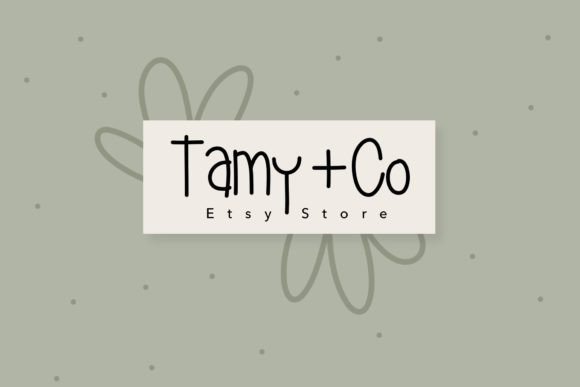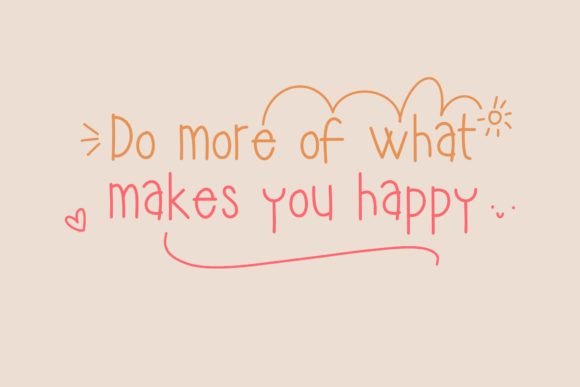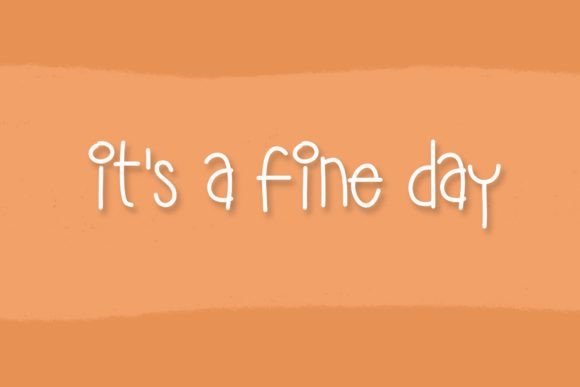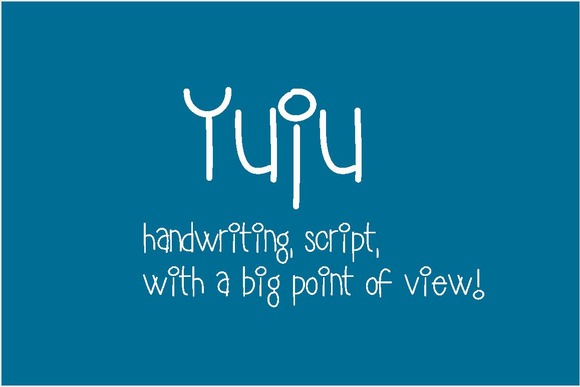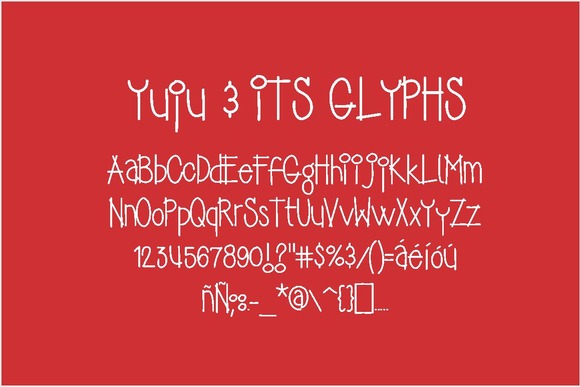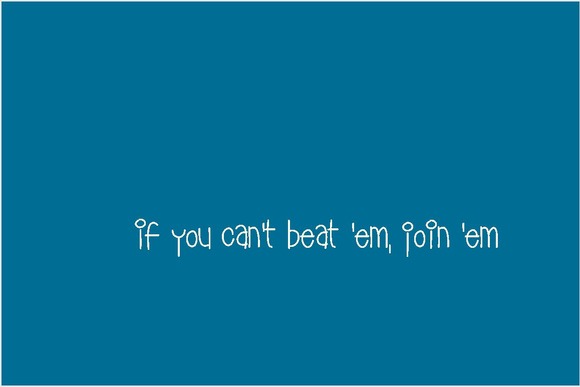
Yuju Font
About Yuju Font
Yuju is a handwriting script. It has big points and is a somewhat strange typeface. It can be used for various purposes such as: magazines, articles, book covers, advertising, brochures, documents, illustrations, booklets, billboards, business cards, packaging, high-resolution videos, presentations, postcards, calendars, posters, t-shirts, print & presentations templates, where the font lends primary value to the product.